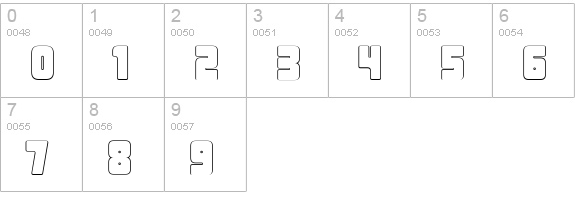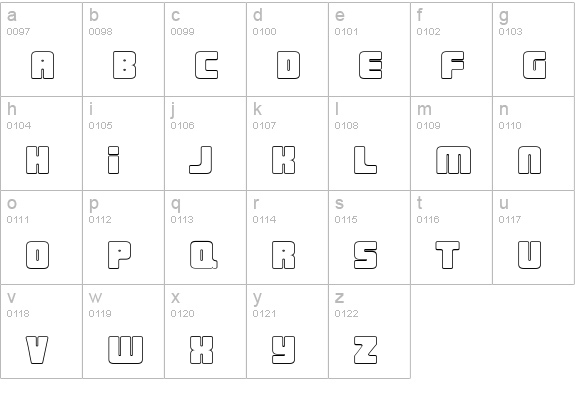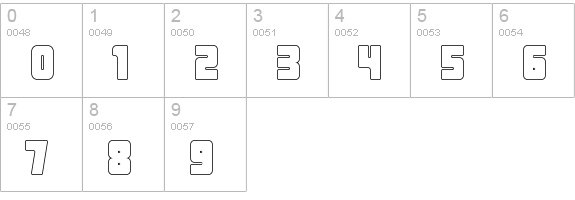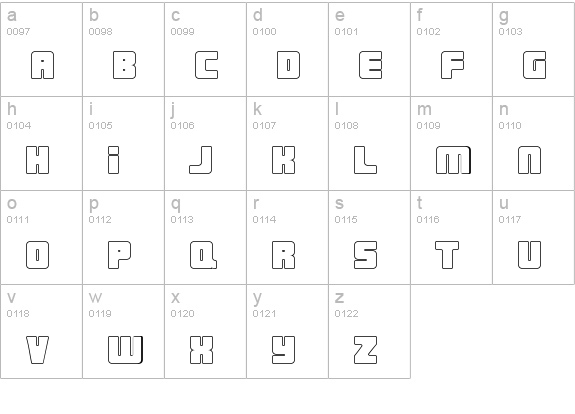
Urban Constructed Outline Font Details
Introducing Urban Constructed Outline font - a modern and stylish typeface perfect for adding a contemporary edge to your designs. This font features clean lines and a bold outline that make it stand out in any project. Whether you're working on posters, logos, or social media graphics, Urban Constructed Outline font will make a statement. The best part? Urban Constructed Outline font is available for free download at FontsMarket.com. Simply head over to the website and grab this versatile font to elevate your design projects. Don't miss out on the opportunity to add this sleek and edgy font to your collection today!